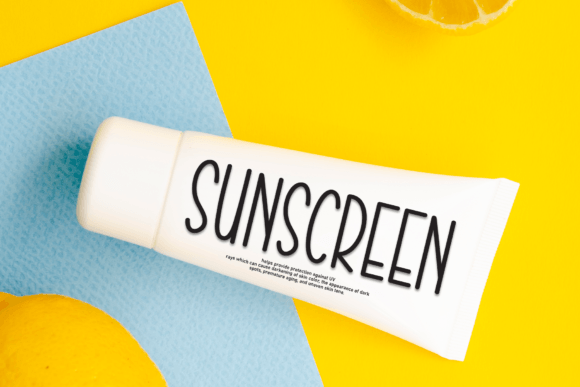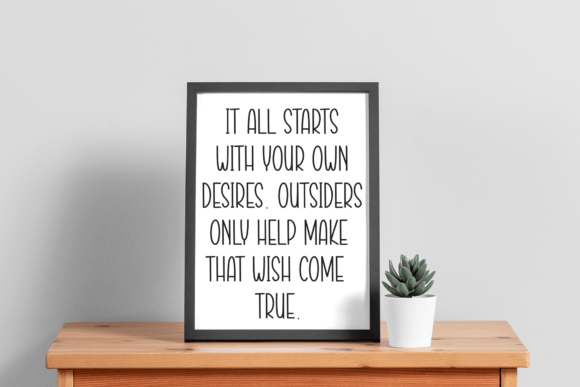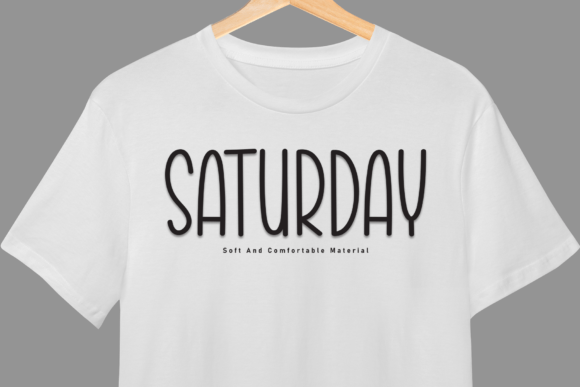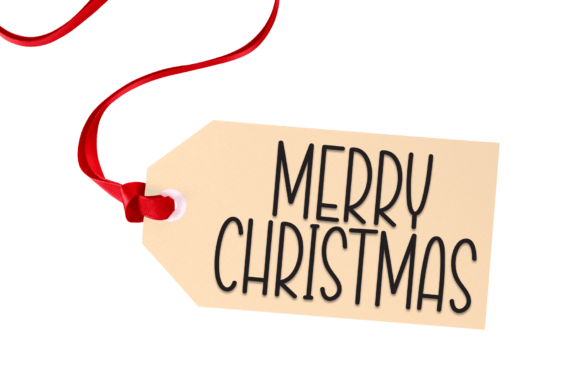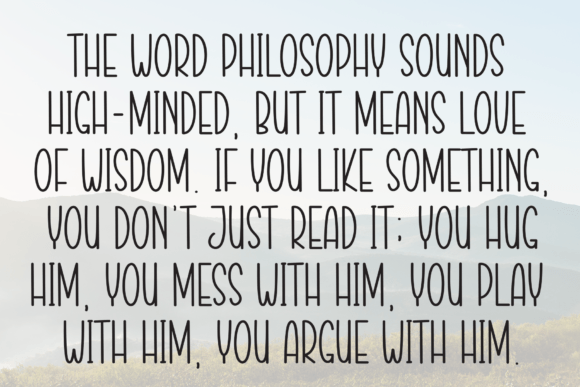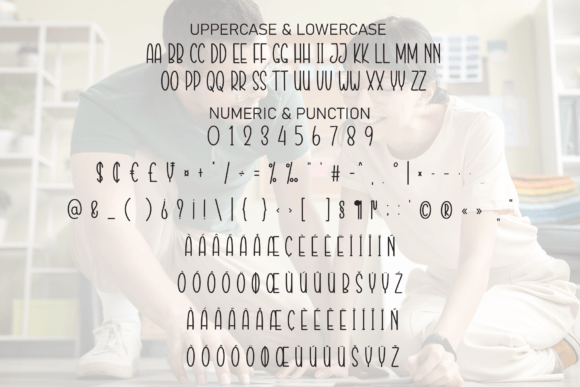
Introducing Creative Husband Font: Elevate Your Designs with Elegance and Modernity
In the world of typography, fonts play a crucial role in conveying the tone and aesthetic of a design. For designers and crafters looking to add a touch of sophistication and creativity to their projects, the Creative Husband Font is an excellent choice. This stylish, thin display font boasts elegant lines, a modern look, and a playful charm that captures attention while remaining easy to read.
The Characteristics of Creative Husband Font
Creative Husband Font is distinguished by its sleek and slender lines, which give it a contemporary and refined appearance. Its design is carefully crafted to offer a perfect balance between elegance and readability, making it an ideal choice for a variety of applications. Whether you’re working on invitations, posters, branding materials, or any project that demands a touch of class, this font is sure to impress.
Elegant Lines and Modern Look
The font’s elegant lines contribute to its sophisticated feel, allowing it to bring a level of refinement to any design. The modern look of Creative Husband Font ensures that your projects stand out with a fresh and current aesthetic. This combination of elegance and modernity is particularly effective in designs where making a statement is key, without compromising on clarity or readability.
Creative Husband Font is versatile and can be used across a range of creative projects. Here are some of the areas where it truly shines:
- Invitations: Add a touch of class to wedding invitations, birthday parties, and other special occasions.
- Posters: Create eye-catching posters for events, promotions, or informational content.
- Branding: Elevate your brand’s visual identity with a font that communicates sophistication and modernity.
Playful Curves and Clean Design
One of the standout features of Creative Husband Font is its playful curves, which add a dynamic and engaging element to the text. These curves, combined with a clean and uncluttered design, ensure that the font remains highly legible, even at smaller sizes. This makes it a practical choice for designs that require both style and substance.
Why Choose Creative Husband Font?
There are several reasons why designers and crafters might choose Creative Husband Font for their projects:
- Uniqueness: It offers a distinctive look that can help your designs stand out.
- Versatility: Suitable for a wide range of applications, from digital content to print materials.
- Ease of Use: Despite its elegant appearance, the font is easy to read and work with.
Creative Husband Font is a stylish and versatile typeface that can add a touch of elegance and modernity to a wide range of design projects. Its combination of elegant lines, playful curves, and clean design makes it an excellent choice for designers and crafters looking to create visually appealing and effective designs. Whether you’re working on invitations, posters, branding, or any other project, Creative Husband Font is sure to help you achieve your creative goals.